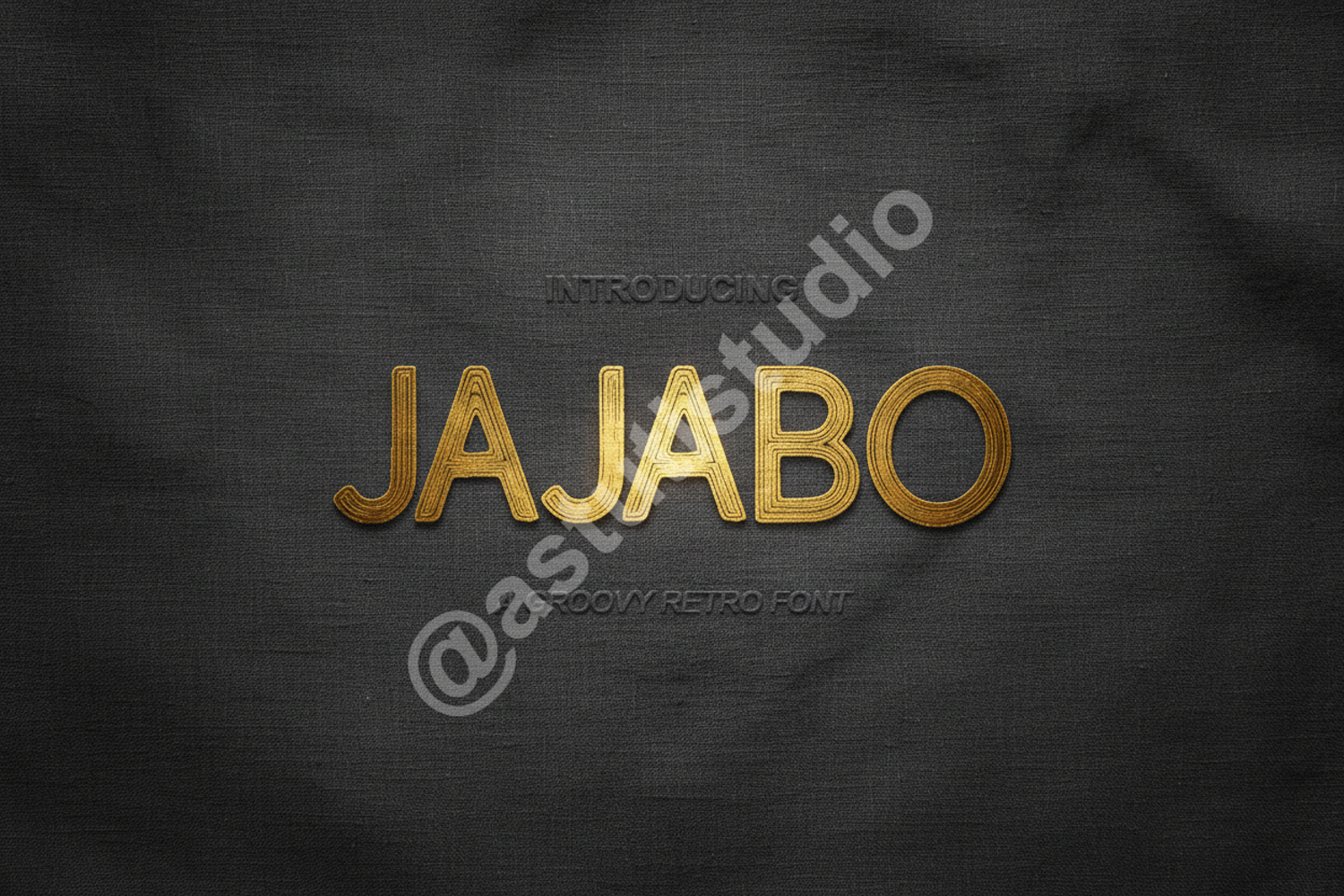
Jajabo | Modern Minimalist Serif Display Font
Jajabo
Jajabo is a premium serif typeface designed to bring a sophisticated yet approachable aesthetic to your creative projects. With its clean lines and unique character shapes, Jajabo strikes the perfect balance between professional elegance and modern flair. Whether you are working on a high-end luxury brand or a creative editorial layout, this font provides the versatility needed to stand out in a crowded market.
- Full Character Set (Uppercase and Lowercase)
- Comprehensive Numbers and Punctuation
- Multi-language Support for Global Projects